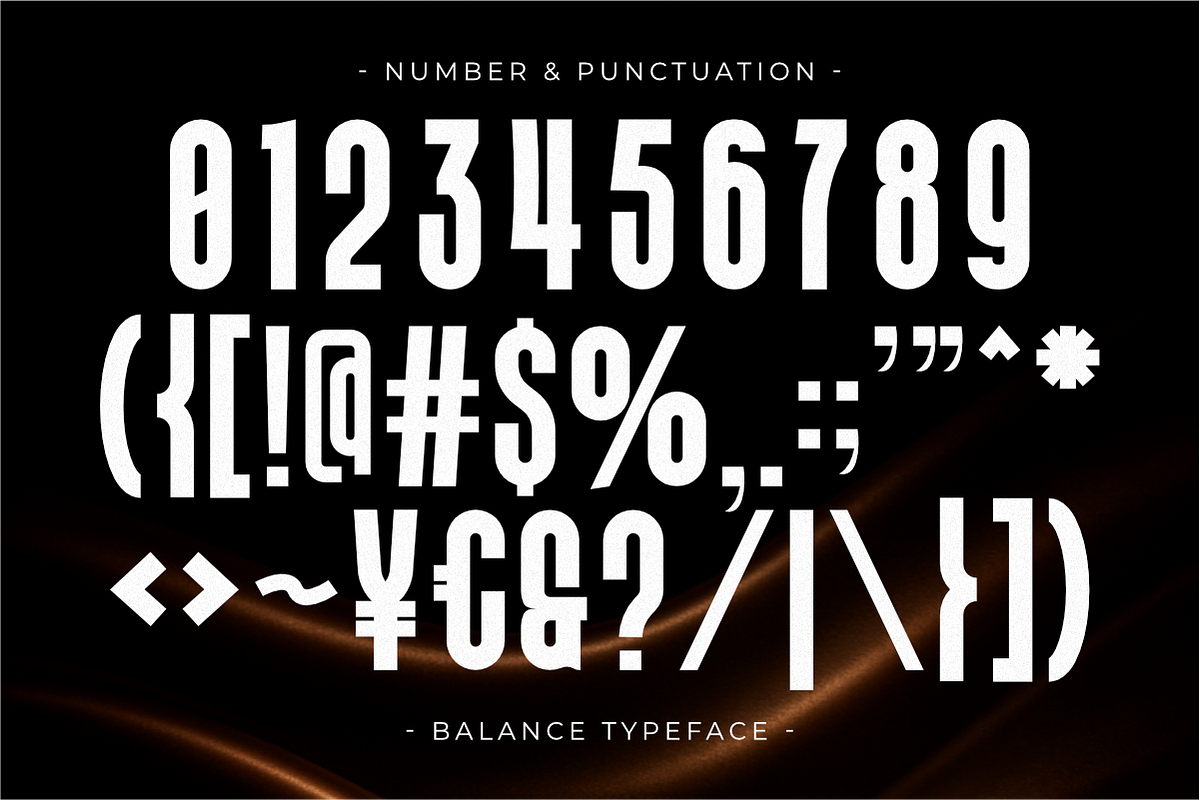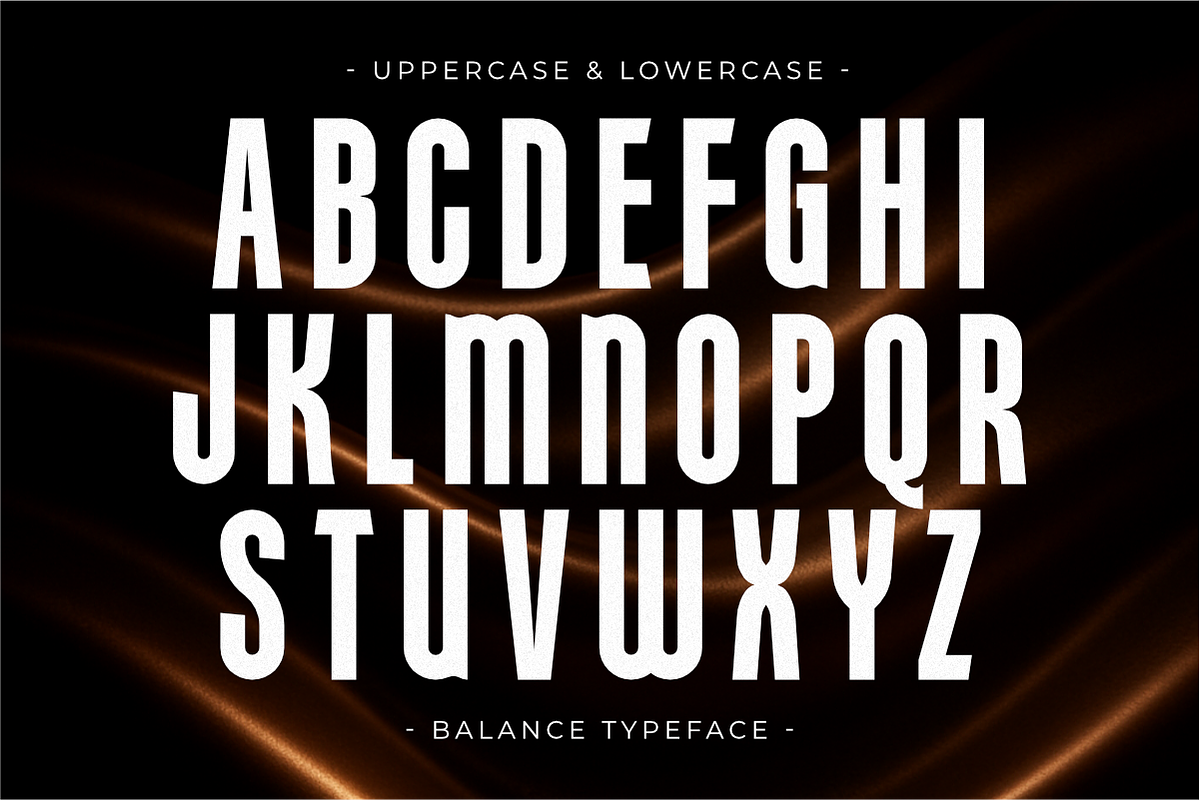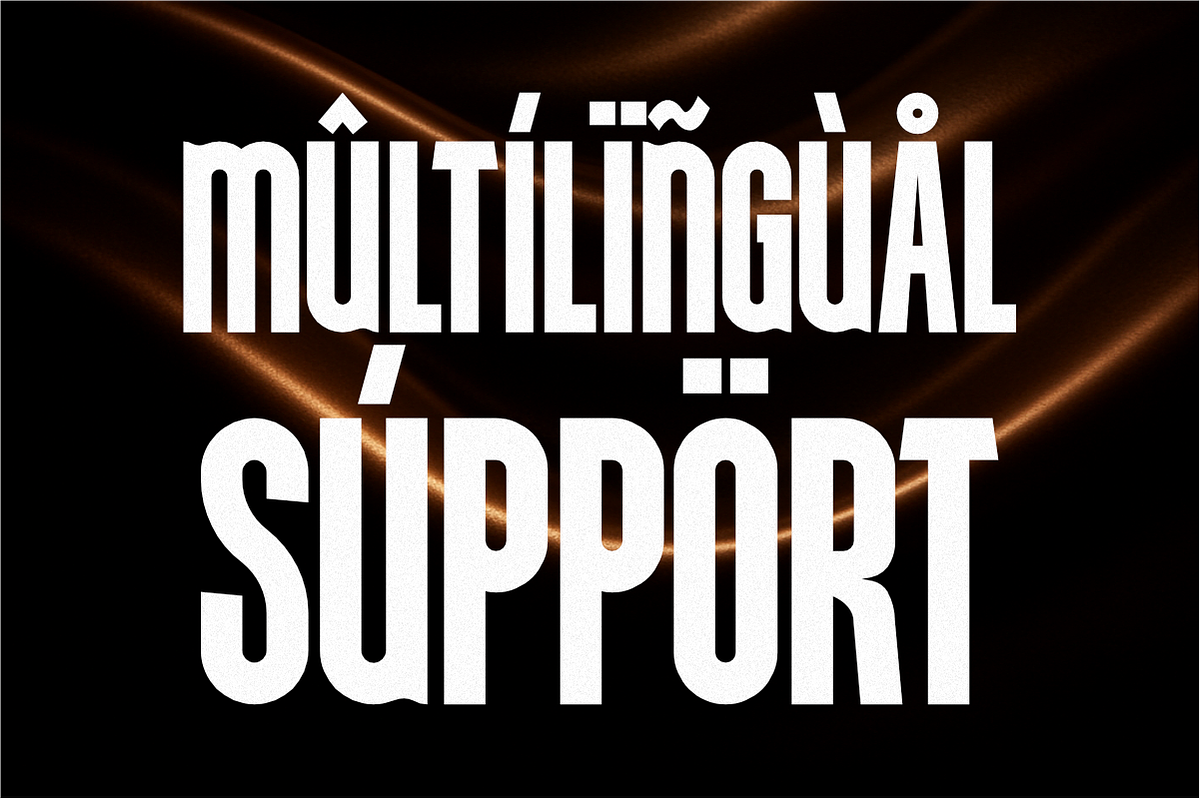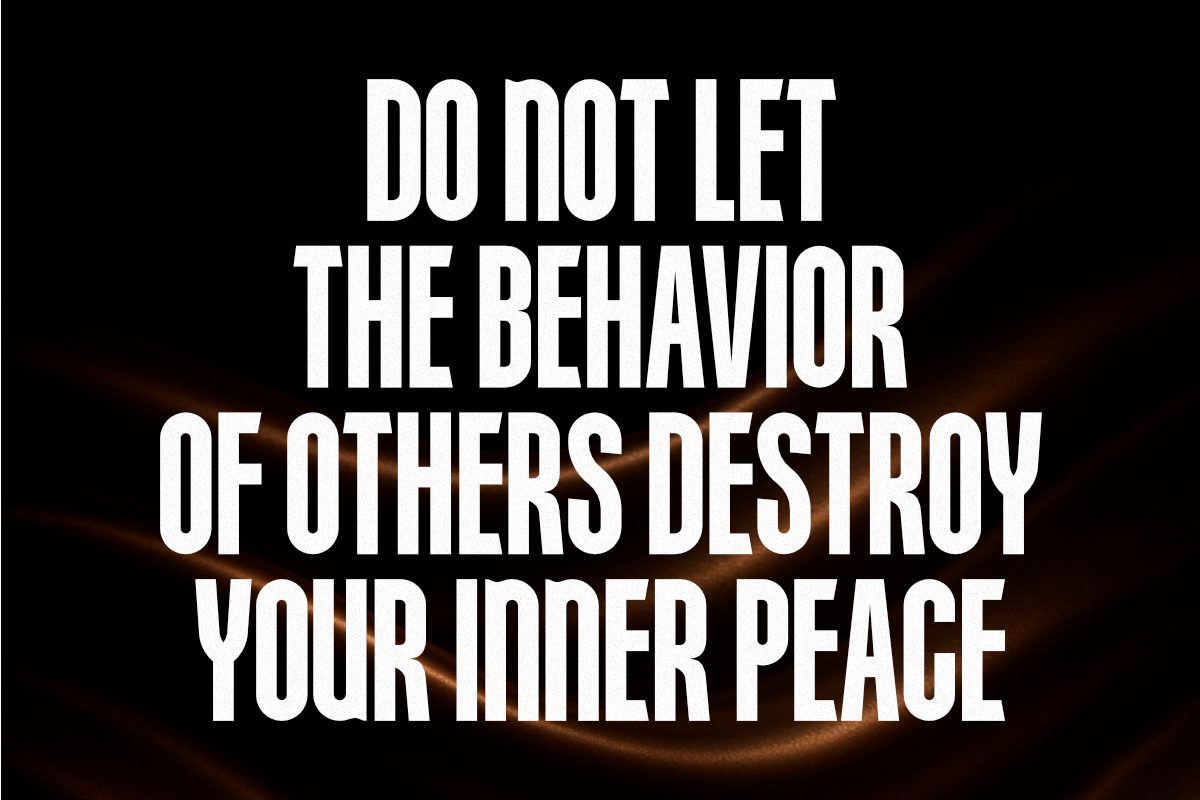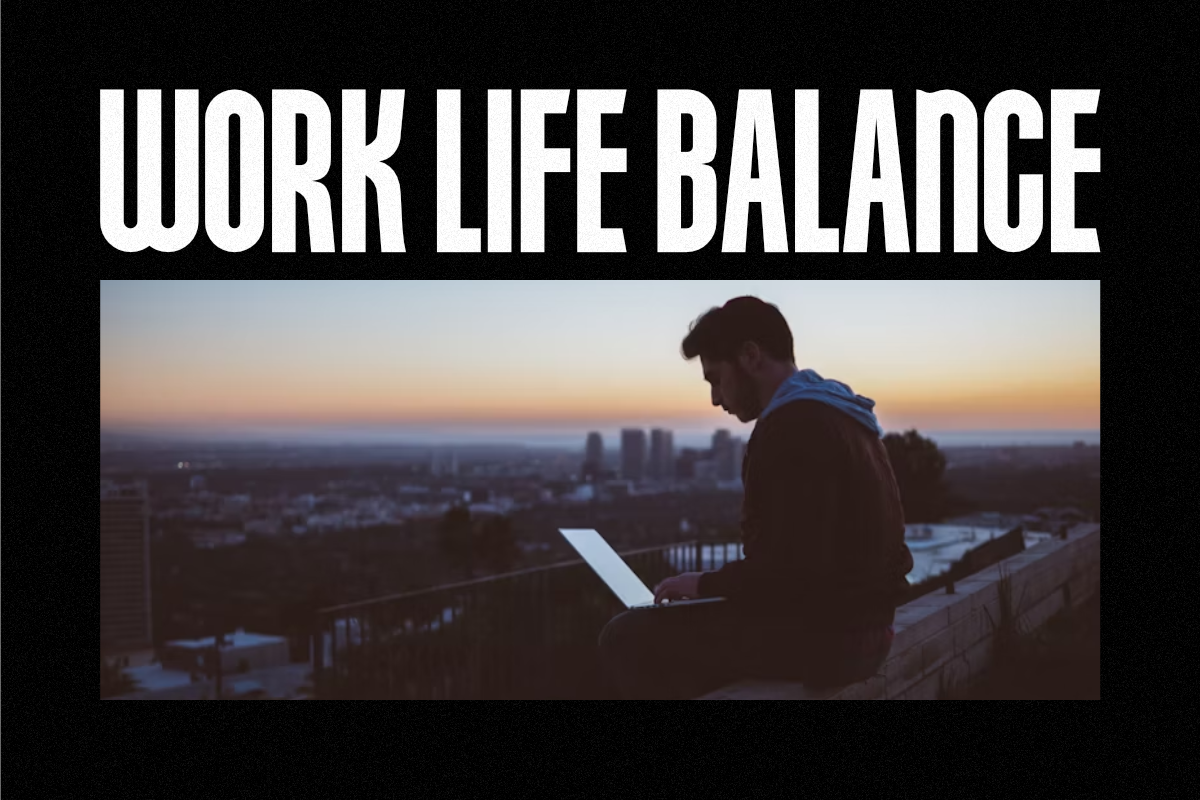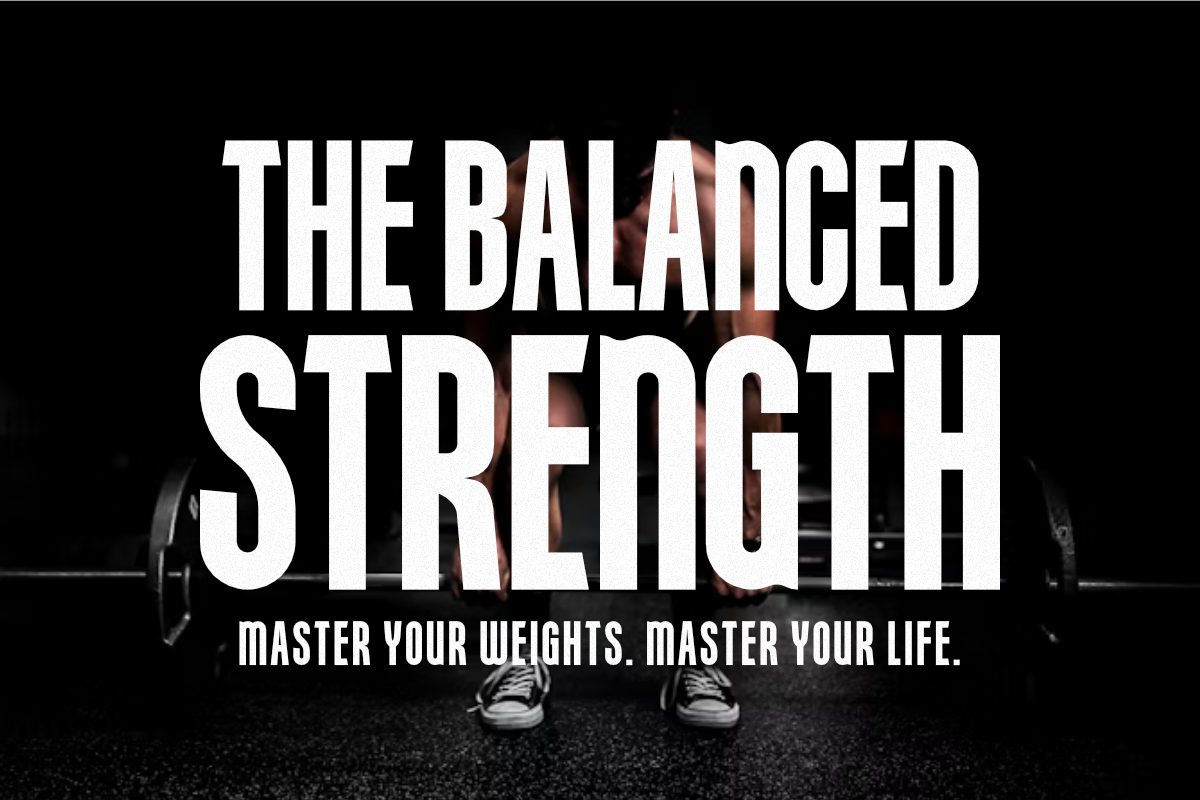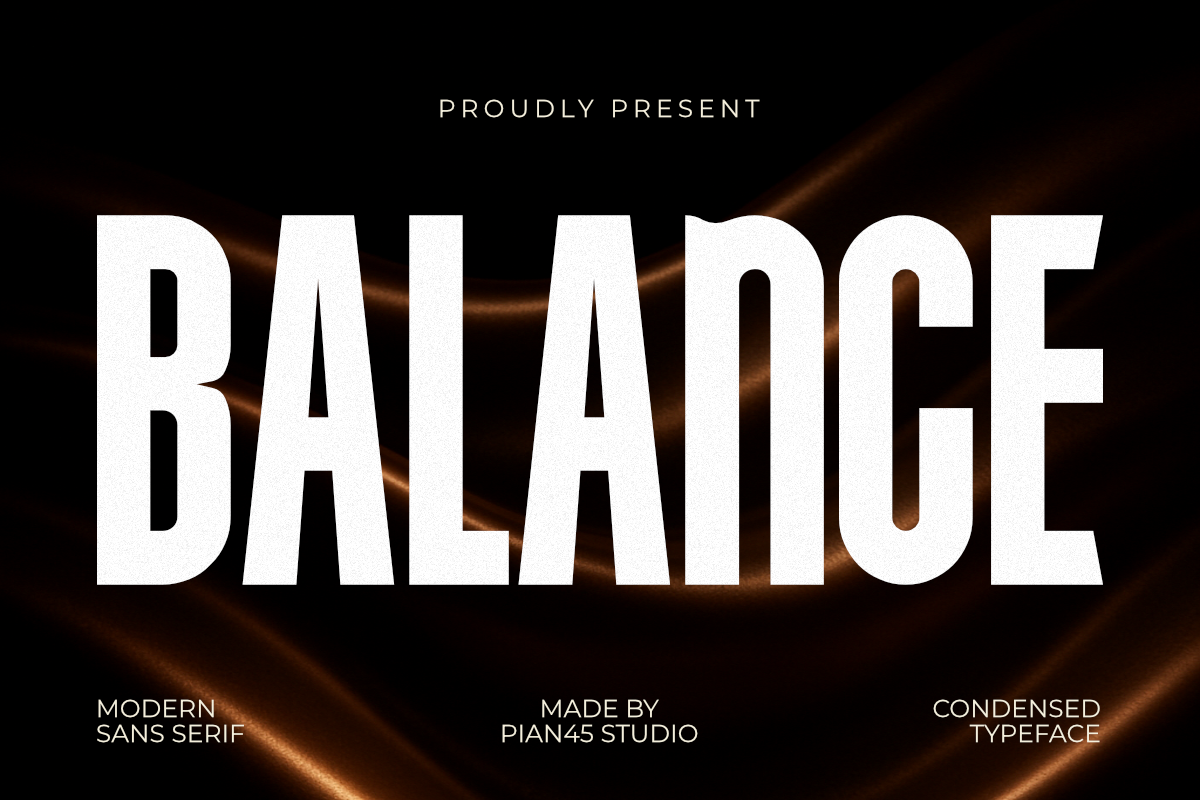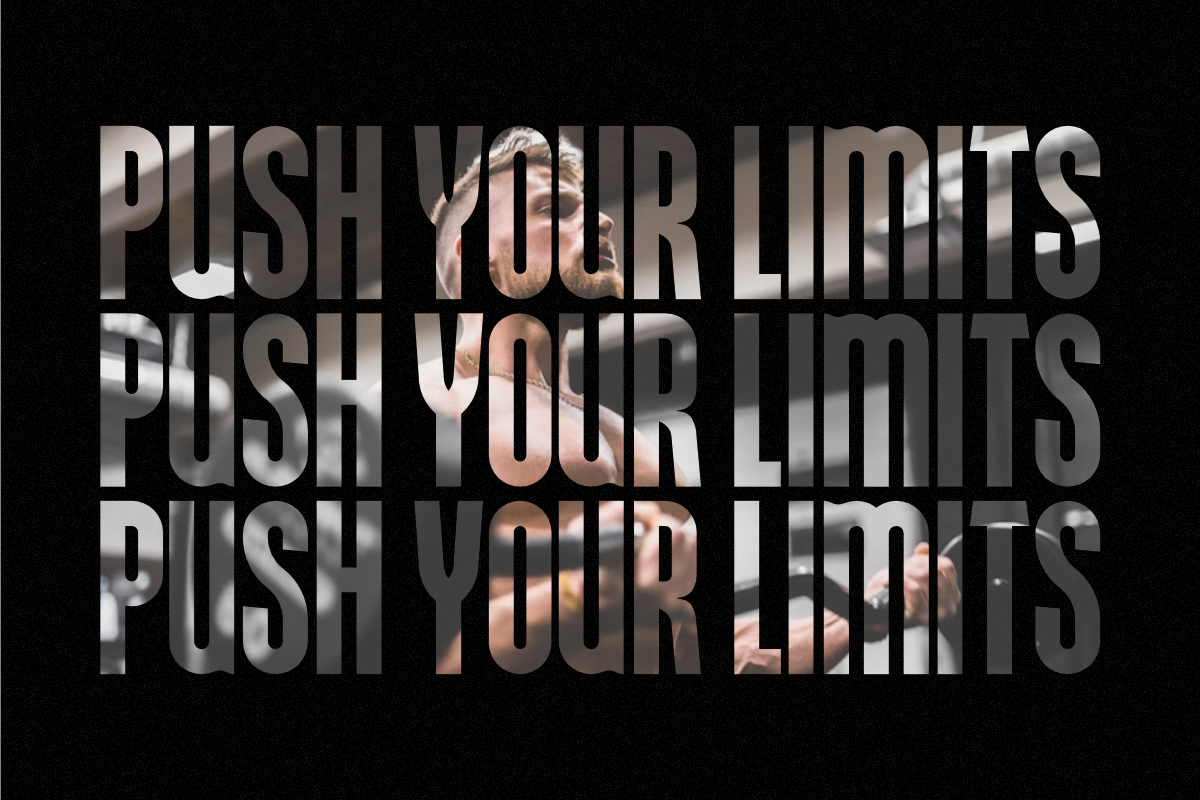
Balance - Condensed Sans Serif Font
Balance is a powerful and minimalist Modern Sans Serif font designed for maximum visual impact. Its ultra-bold, condensed structure is perfect for high-fashion branding, editorial layouts, sports logos, and colossal headlines. This all-caps typeface delivers a sophisticated, contemporary, and instantly recognizable visual identity, making it essential for any project demanding a dominant, clean, and striking presence in a compact vertical format.